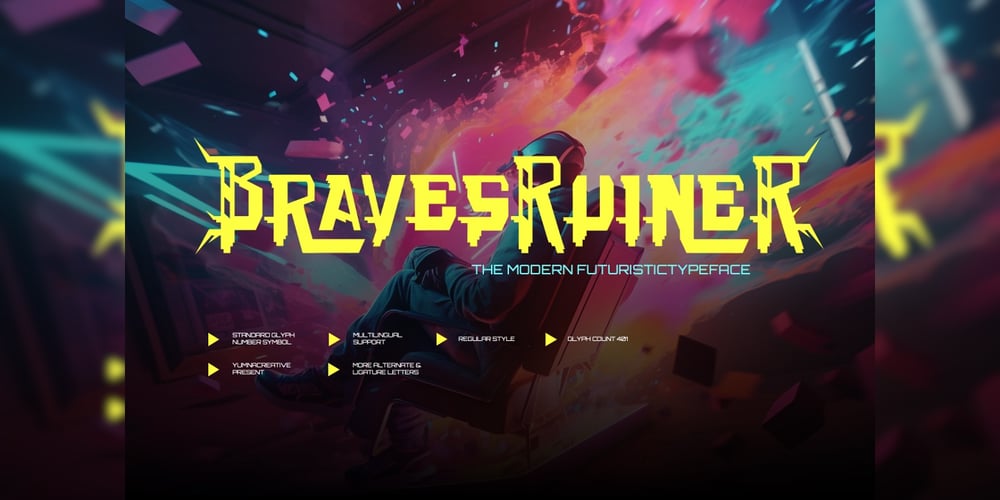
Braves Ruiner
Braves Ruiner font
Braves Ruiner Font Family was designed by Dhimas Habibie and published by Yumnacreative. Braves Ruiner contains 1 styles and family package options. Introducing Braves Ruiner – Modern Futuristic FontThis Font is a delicate, elegant and flowing handwritten font. It has beautiful and well as a unique blend of ligatures a letter, so that the authors compose it with a and little swirly embedding, so that a modern font is formed and ready to make a statement by adding elegant and unique flair to your next design project. Add it to your most creative ideas and notice how it makes them come alive!FEATURES- Uppercase and Lowercase letters- Numbering and Punctuations- Alternate & Ligature- Multilingual Supports- Works on PC or Mac- Simple Installation- Support Adobe Illustrator, Adobe Photoshop, Adobe InDesign, also works on Microsoft WordHope you Like it.Thanks.